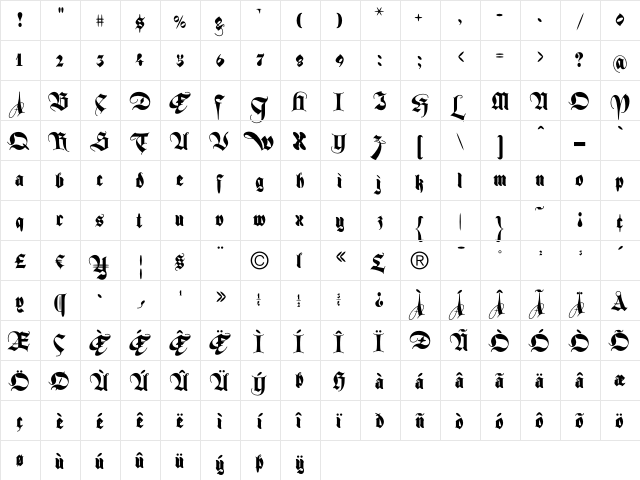
Ferox Alternate
| Designer | Miles Newlyn |
Design Context for Ferox Typeface
Ferox is a composed and adaptable typeface that performs quietly and consistently across a wide range of design contexts.